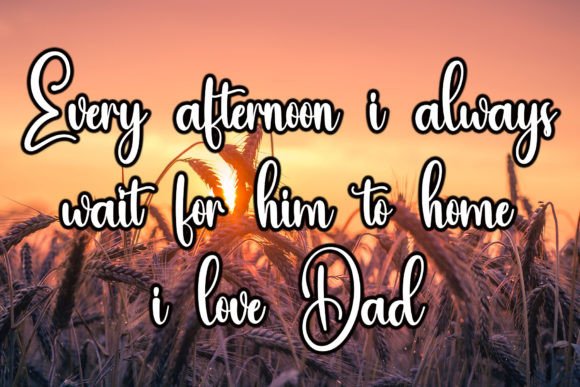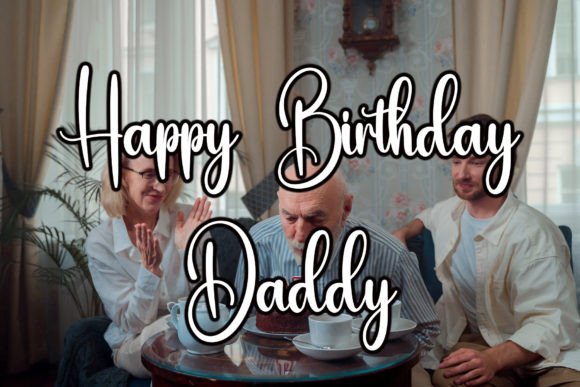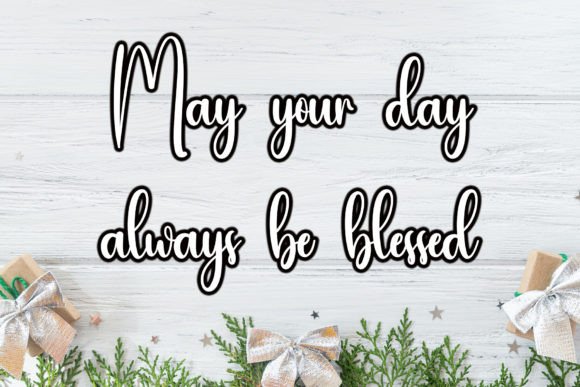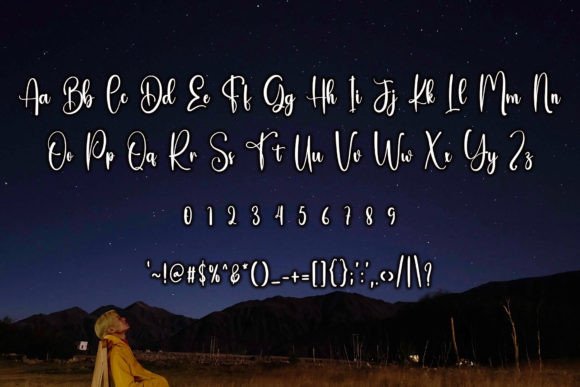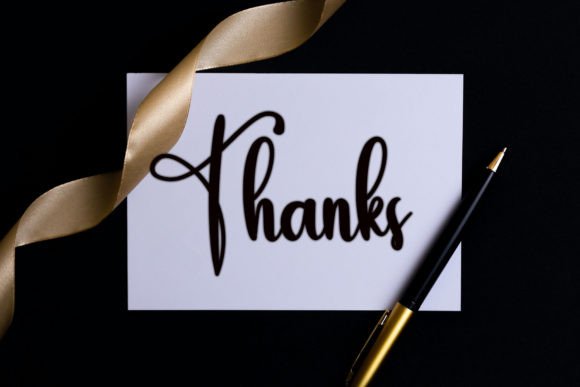
The Ultimate Guide to Daddy Font: Elevate Your Designs with Elegance
I’ll never forget the moment I stumbled upon the perfect font for a client’s wedding invitation project. I had been searching for hours, trying out different fonts, but none seemed to capture the essence of the elegant and sophisticated vibe I was going for. That was until I discovered the Daddy Font – a beautiful, handwritten font that instantly won me over with its unique charm and character.
First Impressions: A Love Affair with Daddy Font
The Daddy Font is described as a neat and beautiful handwritten font with an elegant touch, perfect for adding a touch of sophistication to your favorite projects. And I couldn’t agree more! Here’s what I love about it:
- ✨ Elegant and refined: The font’s classic style makes it perfect for projects that require a touch of sophistication.
- ✅ Unique character: The font’s distinct and timeless style sets it apart from other fonts, making it a great choice for designers looking to create something special.
- 💫 Versatile: Whether you’re working on a wedding invitation, a branding project, or a craft, the Daddy Font is sure to impress.
The Honest Review: Weighing the Pros and Cons
While I absolutely adore the Daddy Font, there are a few quirks to be aware of:
- 🤔 Limited availability of certain characters: Some users have reported that certain characters, such as ligatures, are not readily available.
- ⚠️ May not be suitable for body text: Due to its elegant and refined nature, the Daddy Font may not be the best choice for body text, especially for longer pieces of writing.
The Daddy Font is the brainchild of a talented font designer who aimed to create a font that exudes elegance and sophistication. The designer’s inspiration came from classic calligraphy and handwritten scripts, with a modern twist to make it more versatile and user-friendly.
| Font Name | Daddy Font |
| What makes the Daddy Font unique? | The Daddy Font’s unique character and elegant touch set it apart from other fonts, making it perfect for projects that require a touch of sophistication. |
| Is the Daddy Font suitable for body text? | While the Daddy Font is elegant and refined, it may not be the best choice for body text, especially for longer pieces of writing. |